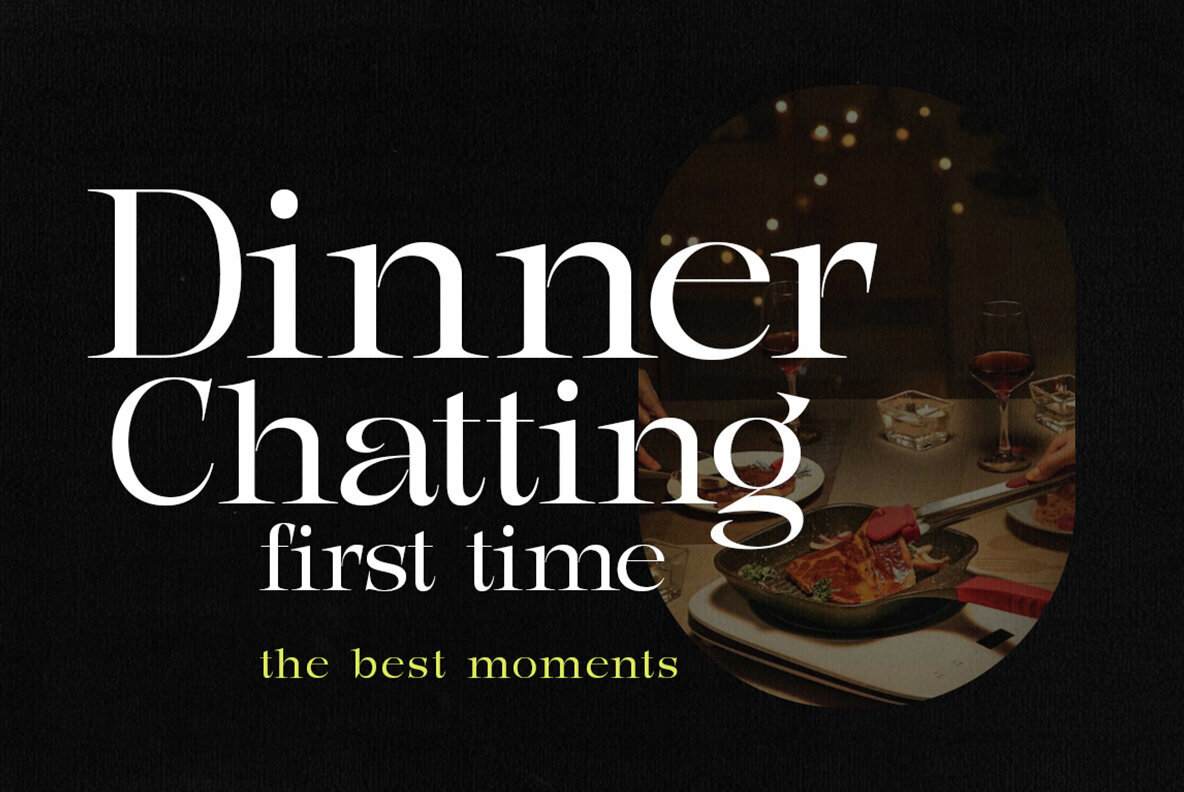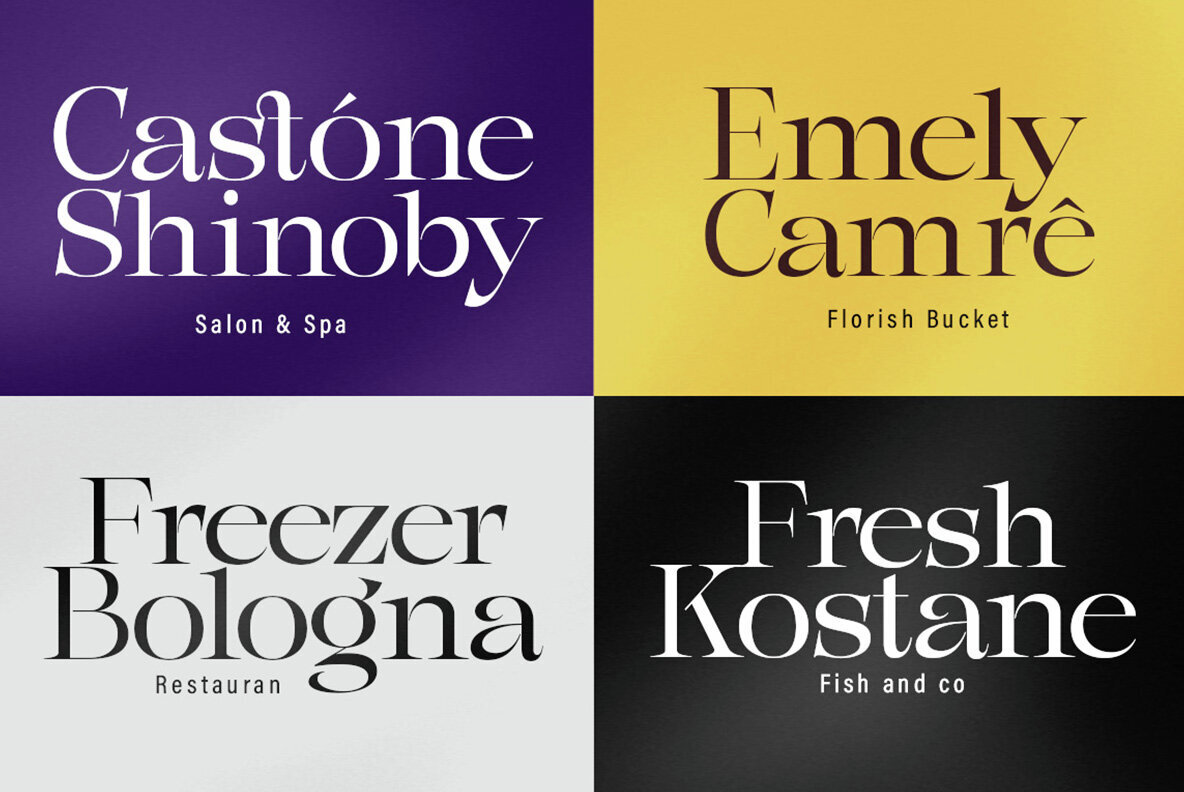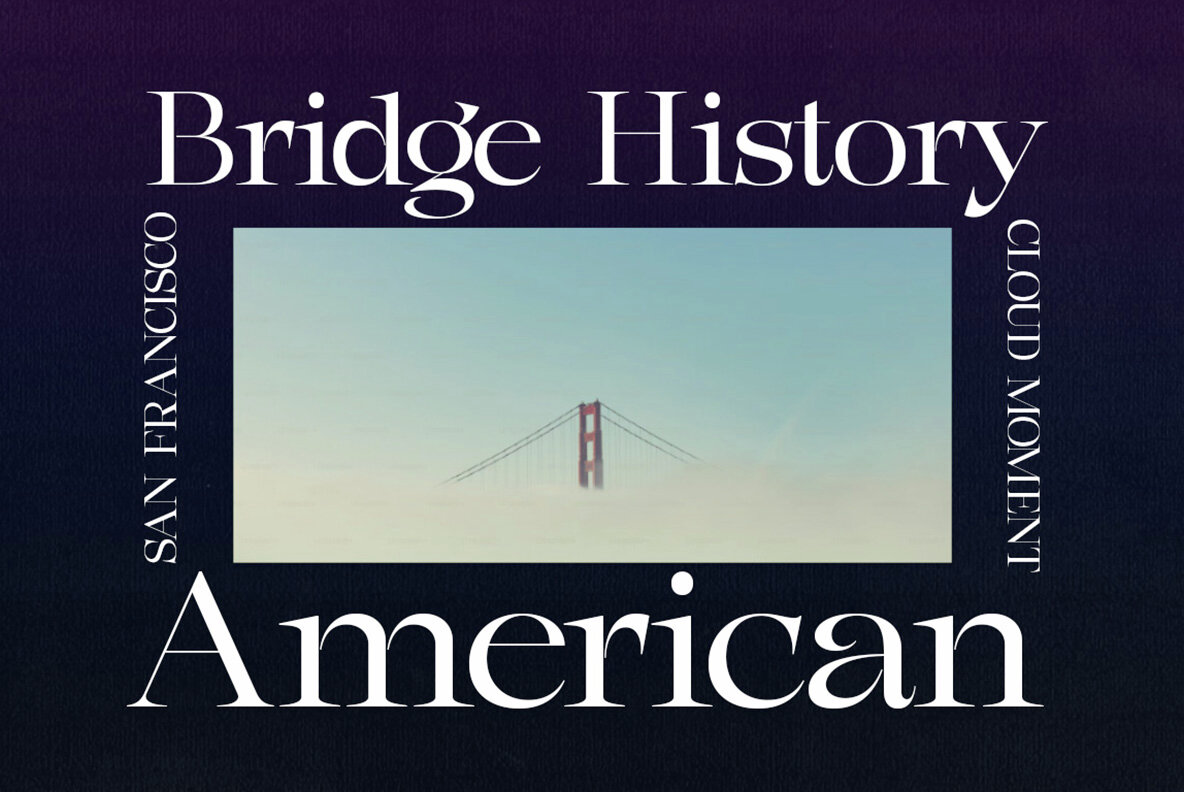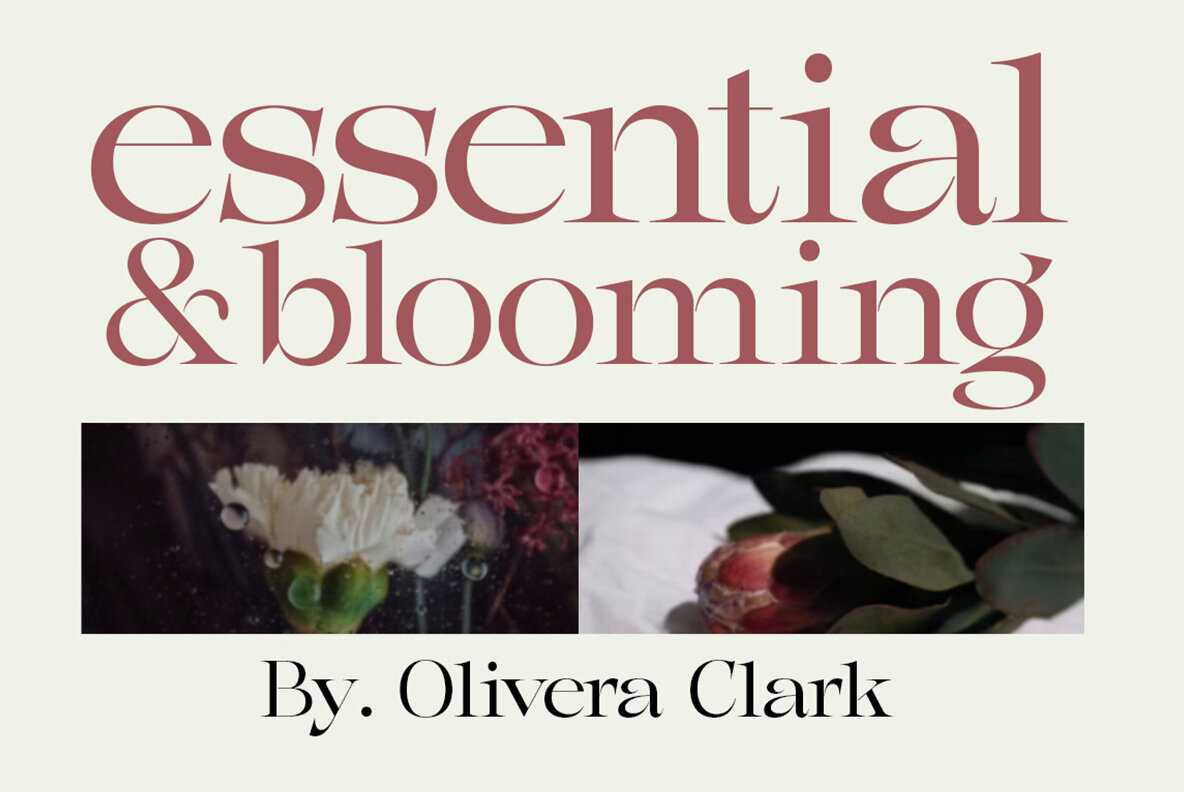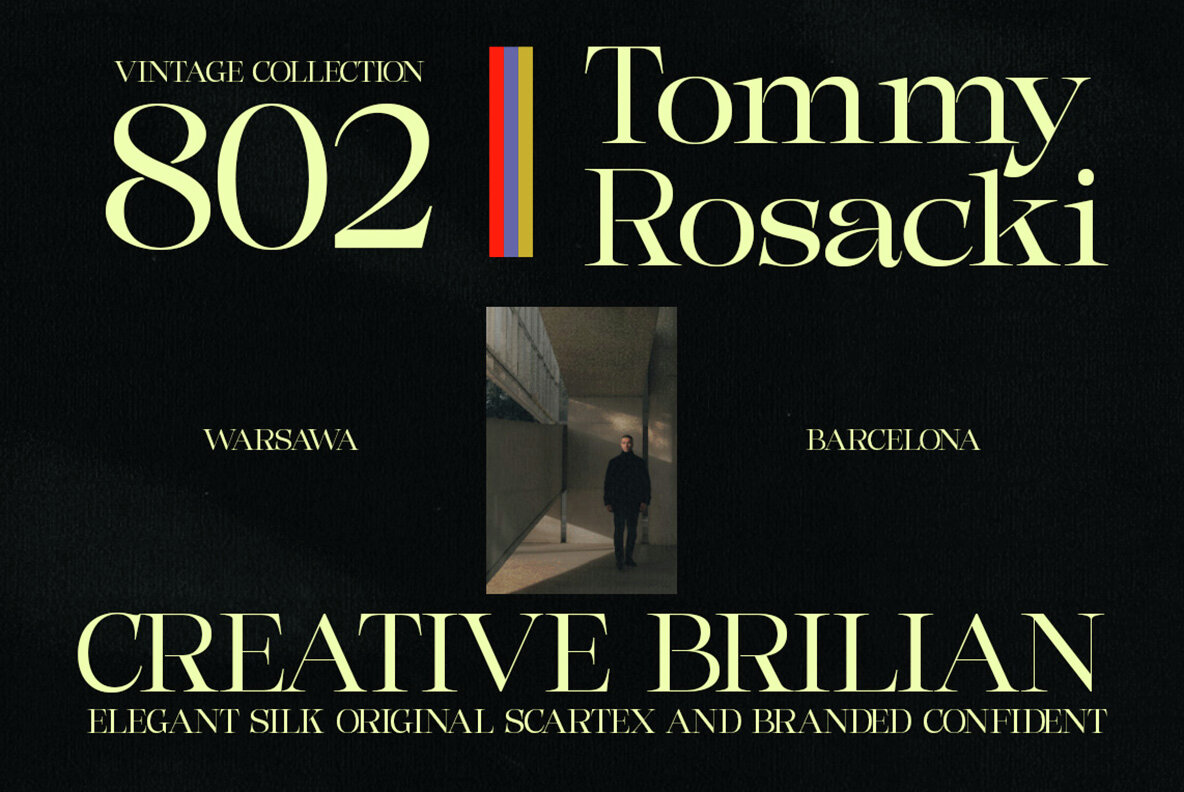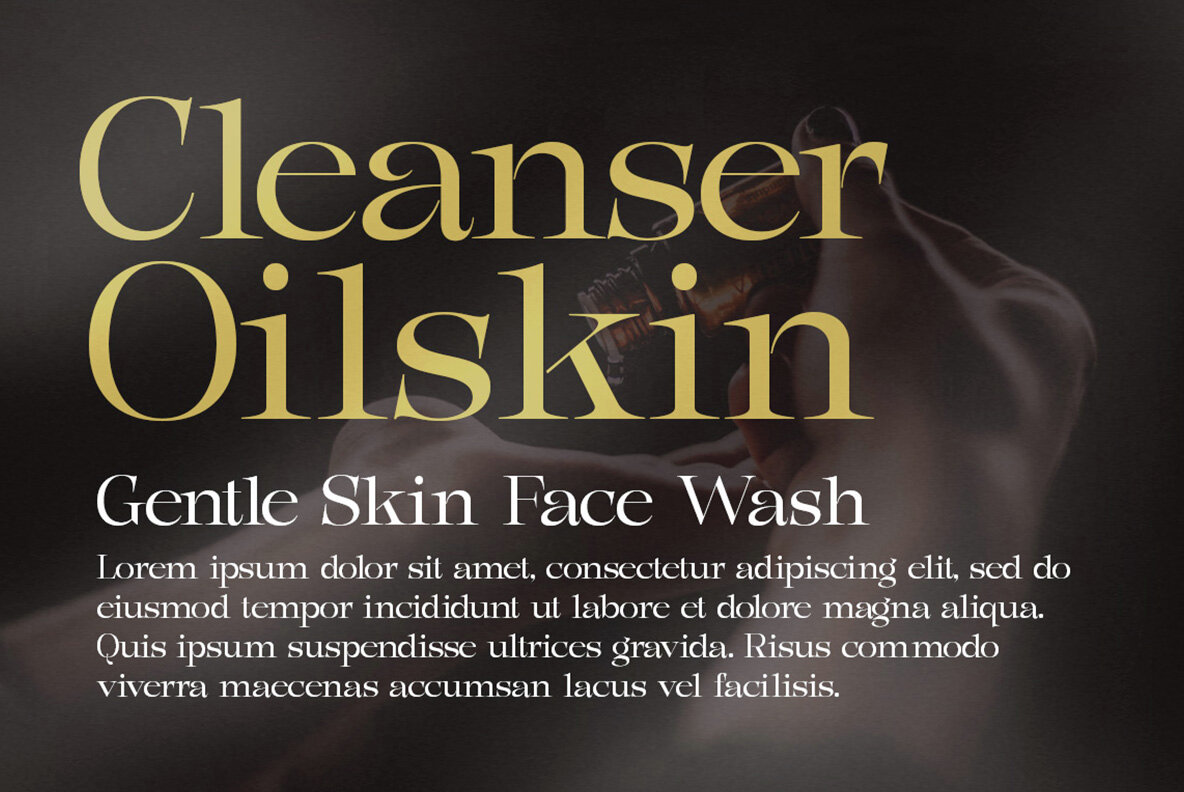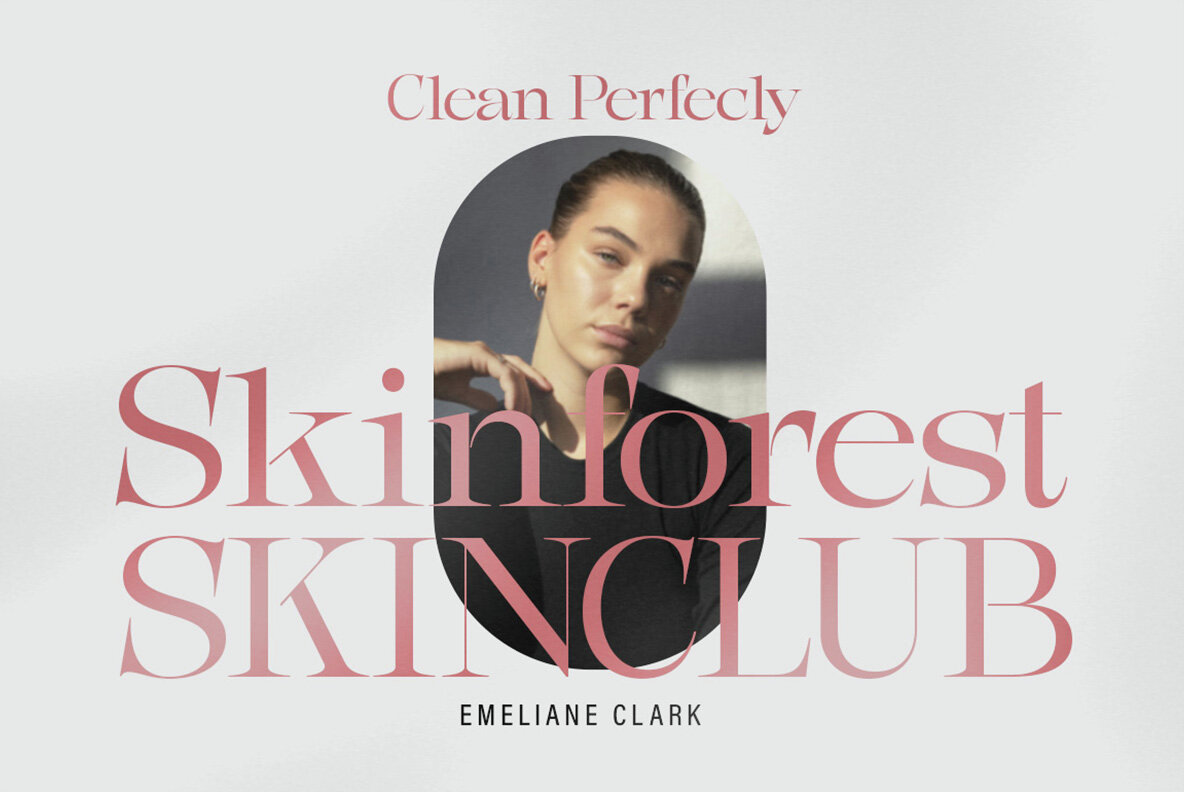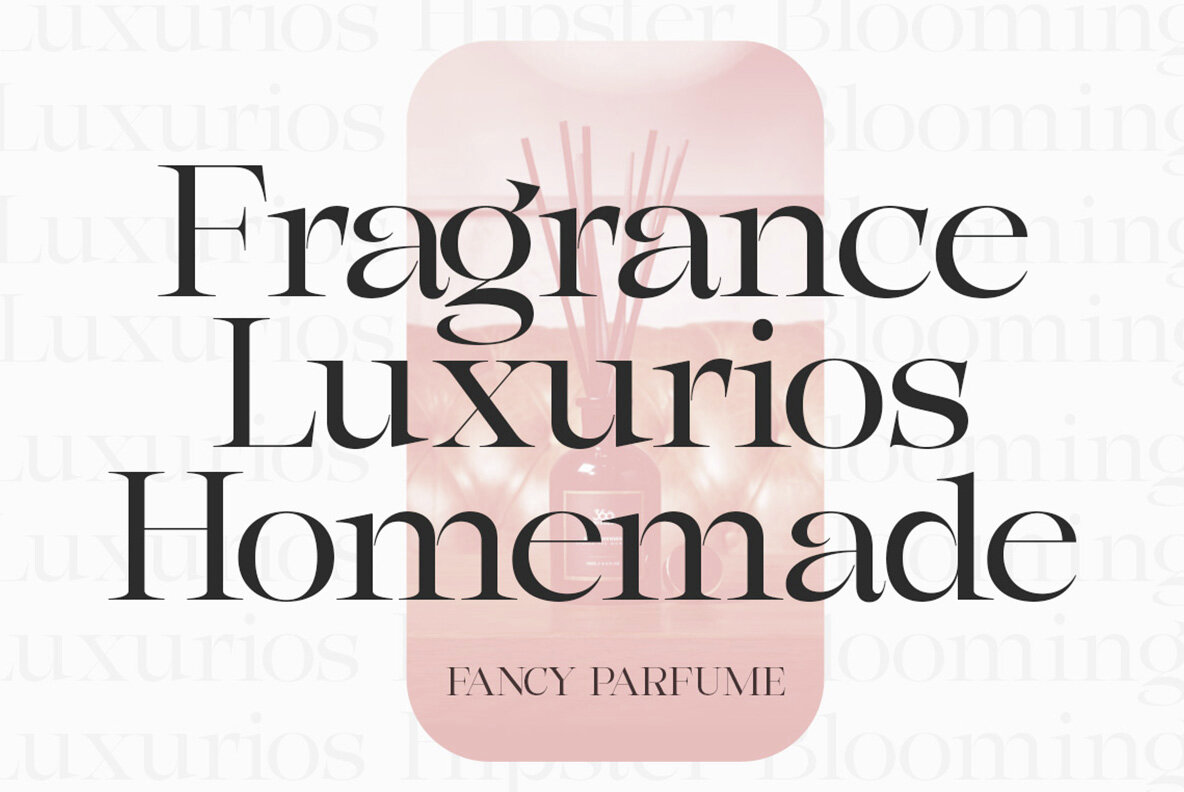
Mania Combo Font
Mania Combo Regular
The Mania Combo font features a stylish design with extreme cuts, sharp angles, and interactive straps. Each character is crafted to maximize personality, providing a bold and modern flair. Characters come in various styles, ensuring each replacement letter stands out distinctly. This combination of bold characters and unique standards forms a typeface that is both solid and attractive, making it ideal for logos, emblems, magazines, quotes, and more. Mania Combo's serif style is a modern display font, with each letter meticulously designed to give your text a unique and stylish appeal.Mania Combo: A Modern Display Font with Extreme Cuts